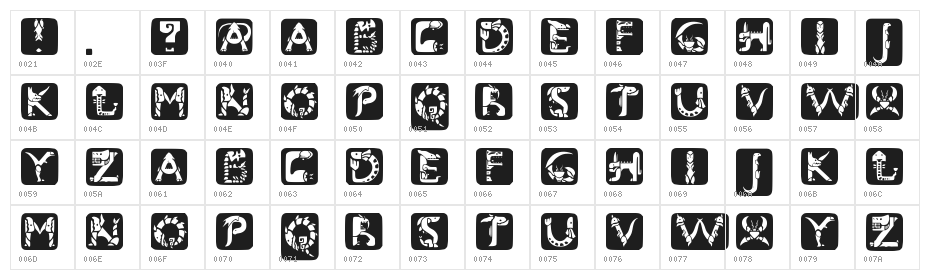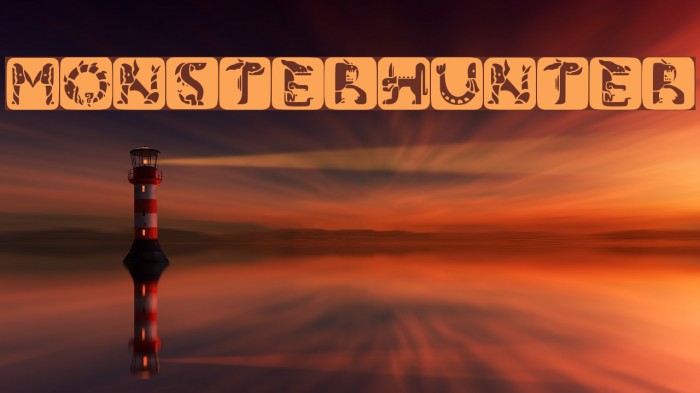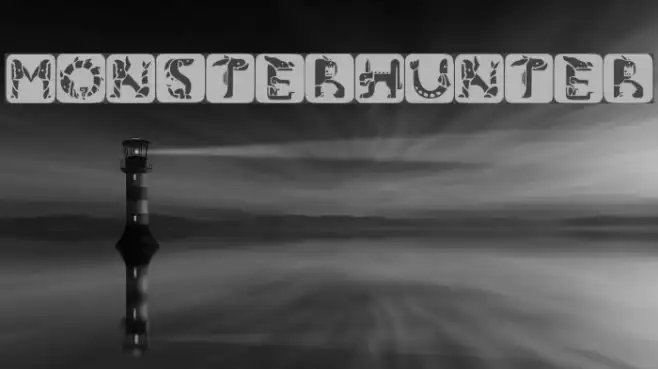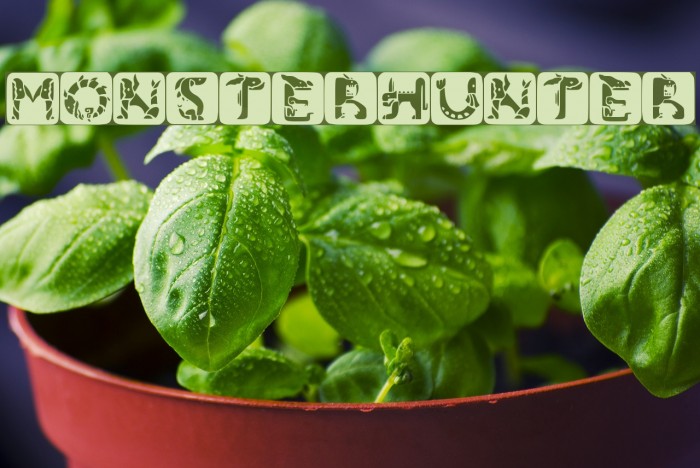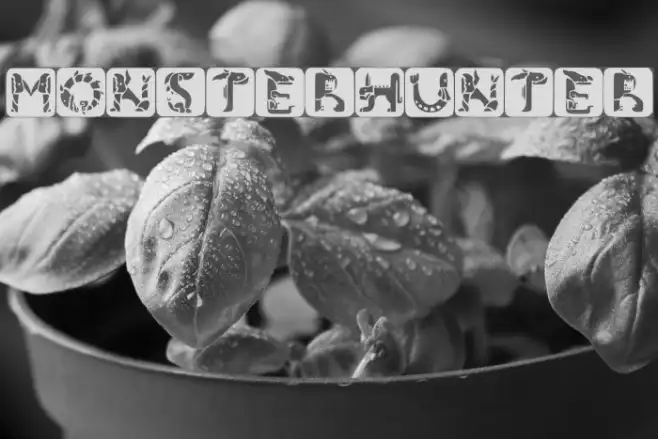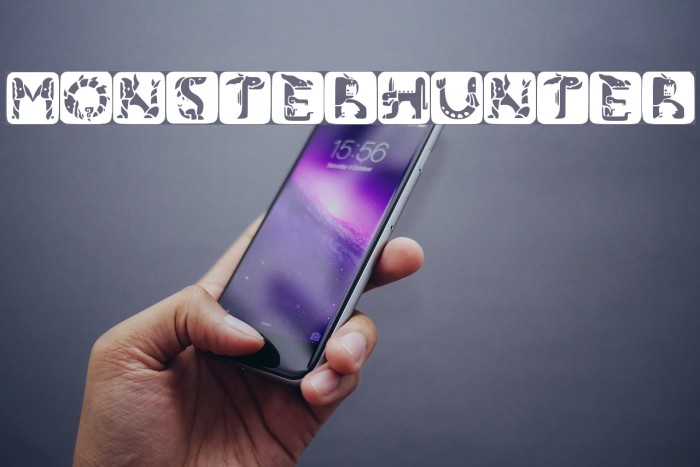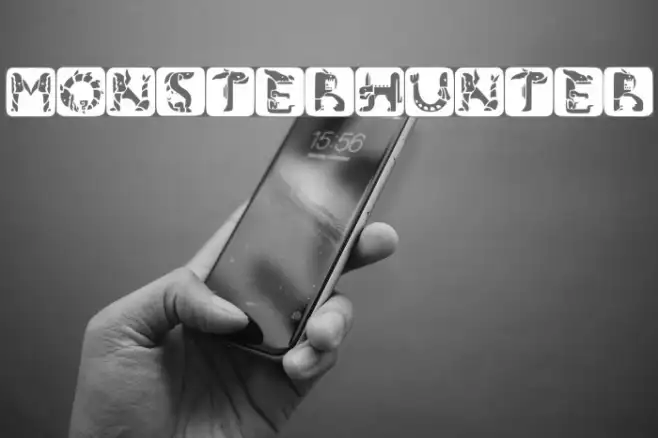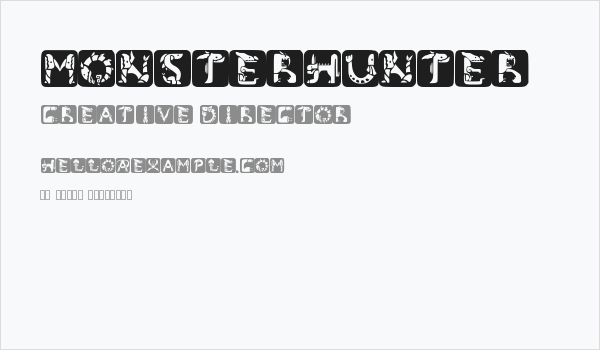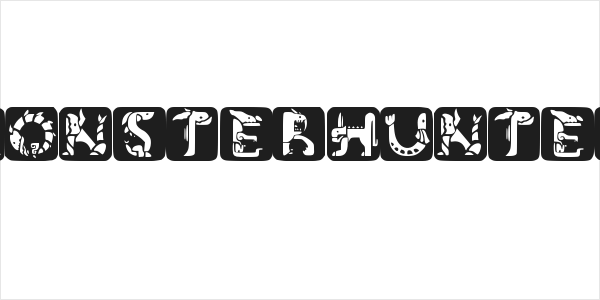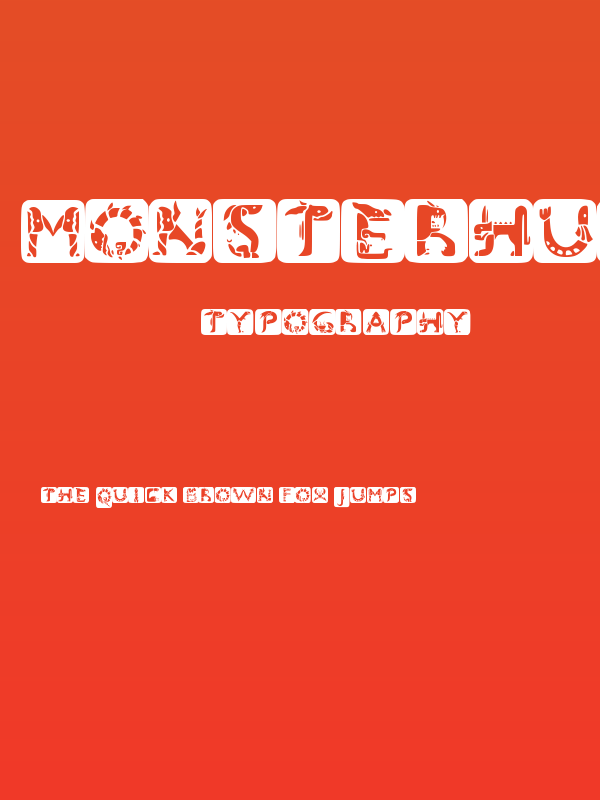
MonsterHunter Font
MonsterHunter Description
This font features a bold and decorative style, with each character intricately designed to resemble elements from a fantasy or monster-themed universe. The uppercase letters are enclosed in square blocks, each filled with unique patterns and motifs that evoke a sense of adventure and mystery. The lowercase letters maintain a similar style, ensuring consistency throughout the typeface. The numbers and special characters are also designed with the same thematic elements, making the font highly cohesive. Its playful and imaginative design makes it ideal for projects that require a touch of whimsy and creativity.
MONSTERHUNTER UPPERCASE
MONSTERHUNTER LOWERCASE
MONSTERHUNTER OTHER CHARS
| Proposed Projects | Ideal for video game titles, fantasy book covers, themed event posters, and creative branding projects. |